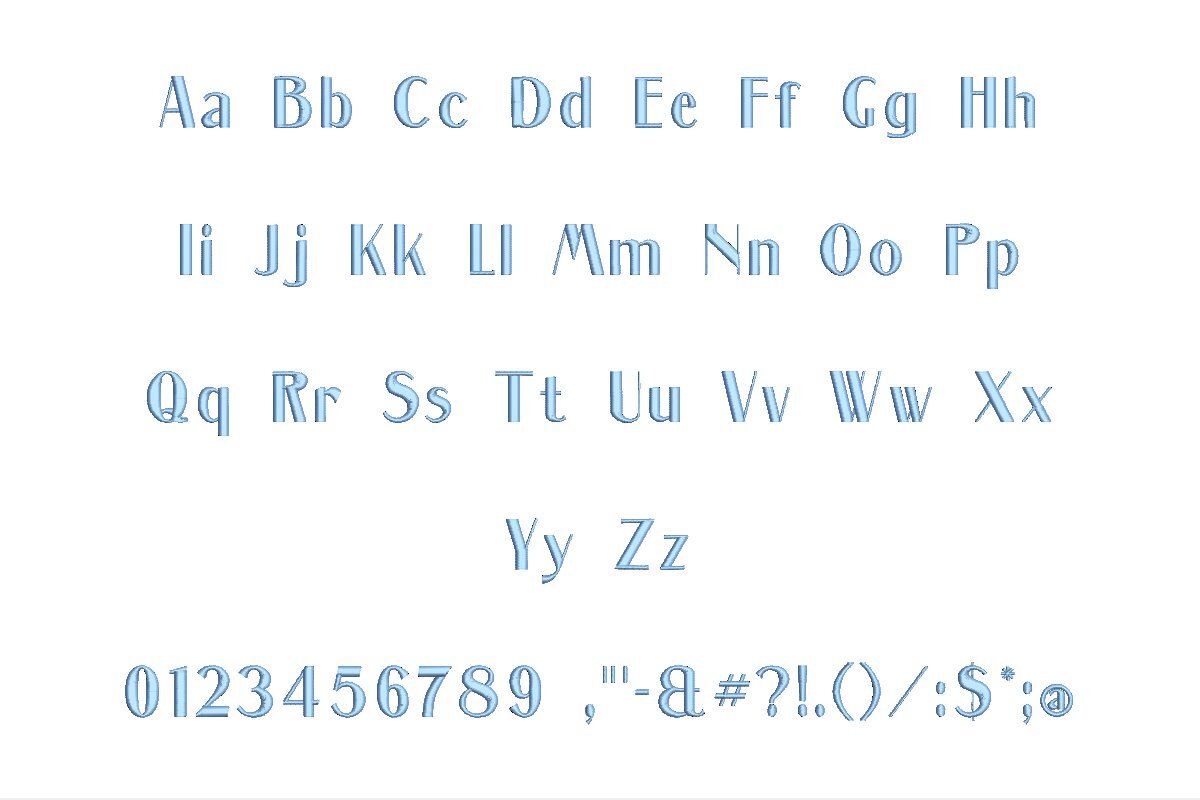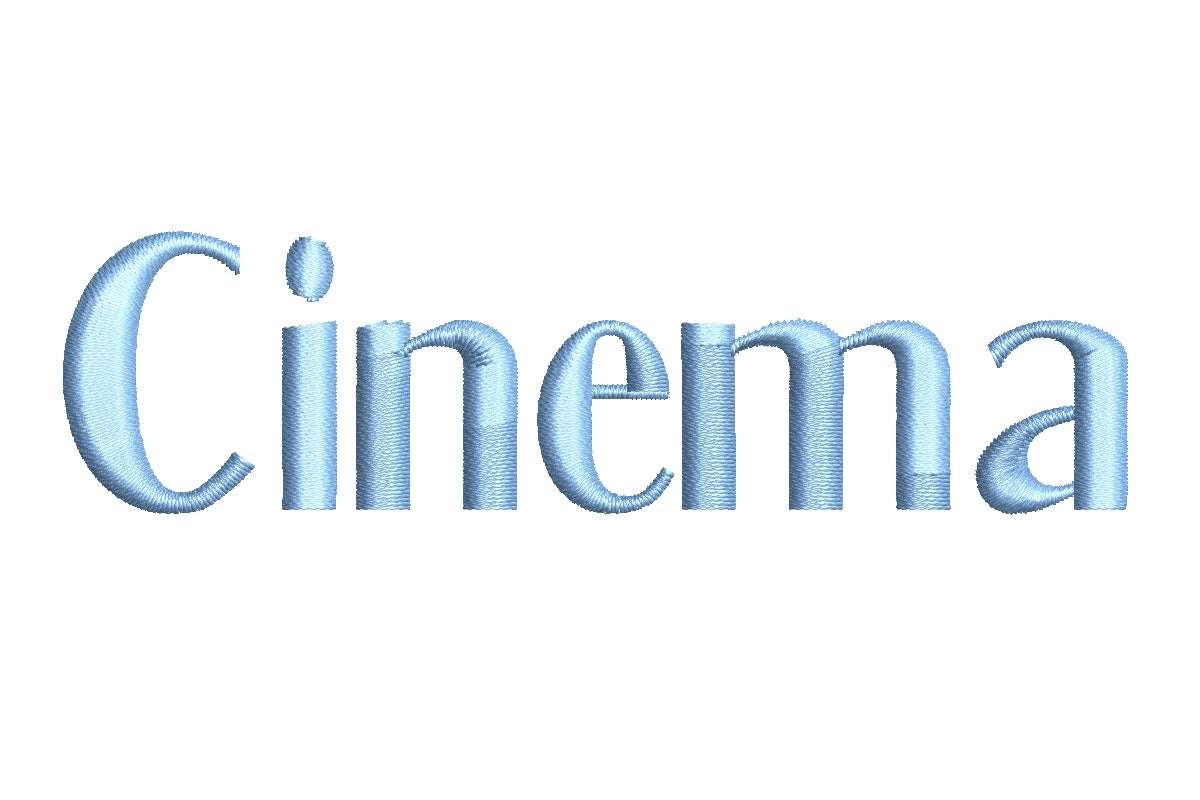
Introducing the Cinema ESA Font, your gateway to cinematic embroidery magic. This font seamlessly integrates with Wilcom Studio e4.5.6 and Hatch 3 versions and beyond, ensuring perfect compatibility. Whether you're a seasoned embroiderer or a newcomer, Cinema ESA simplifies your creative journey. Its effortless integration with Wilcom Studio and Hatch guarantees smooth digitizing and stitching. Crafted with precision, this font brings a touch of drama and flair to your designs. Elevate your embroidery projects and achieve exceptional results with the Cinema ESA Font. Unleash your creative storytelling through embroidery - order now to experience the magic.